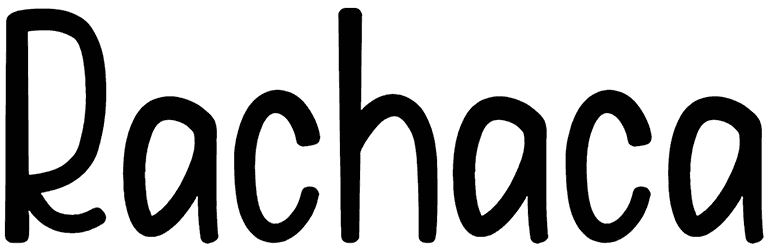
Rachaca Font
Rachaca is a handwritten font with a simple, balanced display. It gives off a cute, playful taste to your work and is available in two styles with good readability, but it doesn’t support some numbers and punctuation. This font can be used in different areas such as product packaging, children’s storybooks, apparel prints, birthday party invitations, and homeware designs.